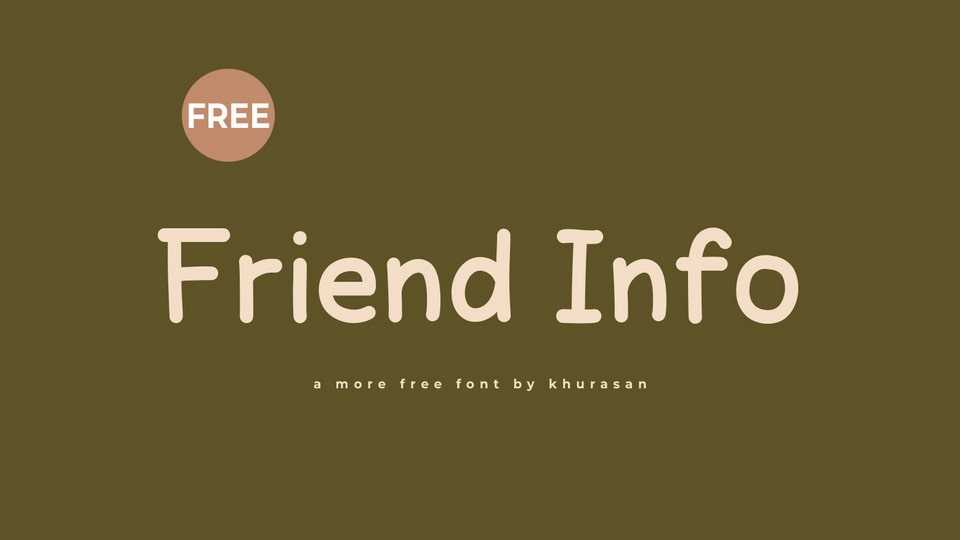
Download Friend Info font, a simple and clean handwritten typeface that captures the essence of casual handwriting with clarity and ease. Friend Info font is crafted with straightforward strokes and consistent letterforms, making it perfect for quotes, lists, and reminders.